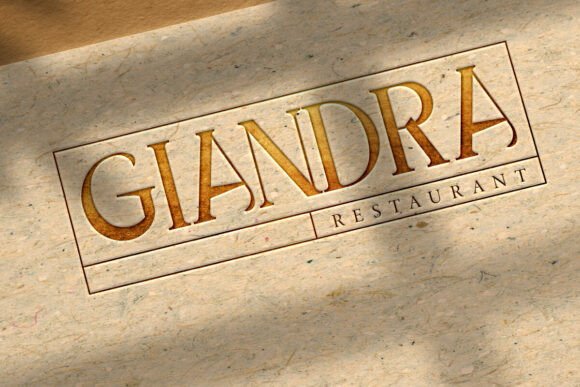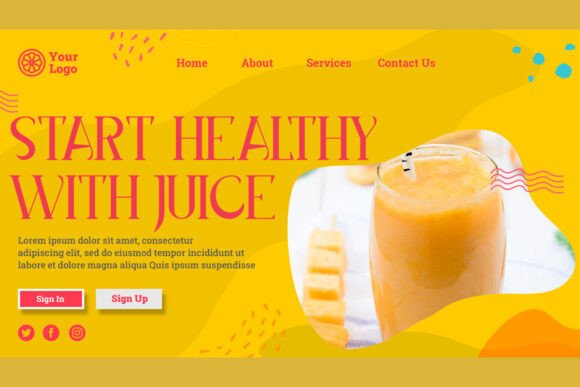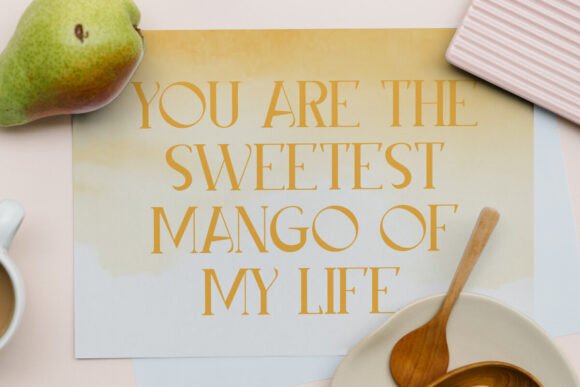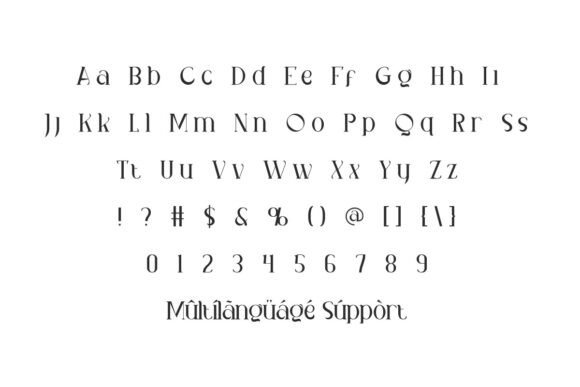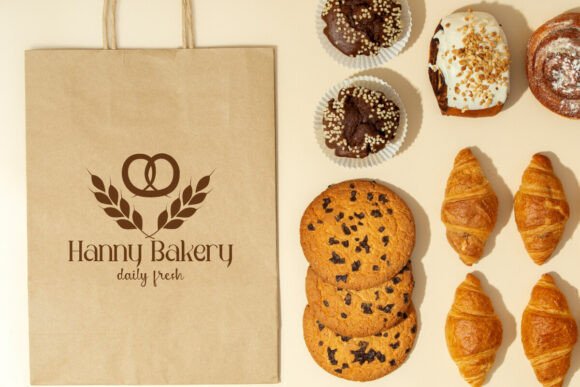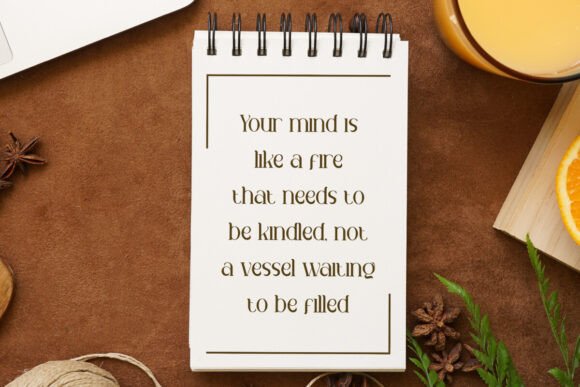
Introduction to Java Mango Font
Remember that moment when you’re brainstorming ideas for a new project, and the perfect font pops into your mind? It’s like a spark of creativity that sets everything off. For designers, finding the right font can be the difference between a good design and a great one. That’s why we’re excited to introduce you to the Java Mango Font – a stunning, high-quality serif display font that’s sure to elevate your creative project.
This vibrant and stylish font is more than just a pretty face – it’s a valuable design resource that’s perfect for a wide range of applications, from headlines and promotions to brand identity and signage. With its unique and eye-catching design, Java Mango Font is sure to grab attention and make your design stand out from the crowd.
Key Features of Java Mango Font
- High-quality design for creative projects, perfect for graphic designers and artists.
- Unique and modern design style, ideal for use in logos, branding, and other visual identity projects.
Honest Review: Java Mango Font
As a designer, I’ve had the chance to work with various fonts, and I must say that Java Mango Font has caught my attention. It’s a great addition to any design resource, offering a unique and high-quality look for creative projects.
I love the vibrant and playful feel of this font, making it perfect for designs that require a fun and energetic vibe. The transparent background option allows for seamless integration with images and other design elements, giving you complete control over the final product.
- ✨ Unique and playful feel that adds a touch of fun to designs
- ✨ Transparent background option for easy integration with images
- ⚠️ Limited font styles available (only a few weights and styles)
- ⚠️ Not ideal for formal or professional designs, as it may come across as too playful
Overall, I’m impressed with Java Mango Font’s potential and versatility. While it may have some limitations, it’s a great addition to any design resource and can be a valuable tool for designers working on creative projects.
Transparent Background and Creative Project Tips
The Java Mango Font features a transparent background, making it perfect for use in design projects that require a clean and minimalist look. To get the most out of the font, use it in combination with other design elements, such as images and graphics, to create a visually appealing design. Experiment with different font sizes and colors to add depth and interest to your project.
The Java Mango Font is suitable for a variety of creative projects, including:
- Business card design
- Brochure design
- Infographic design